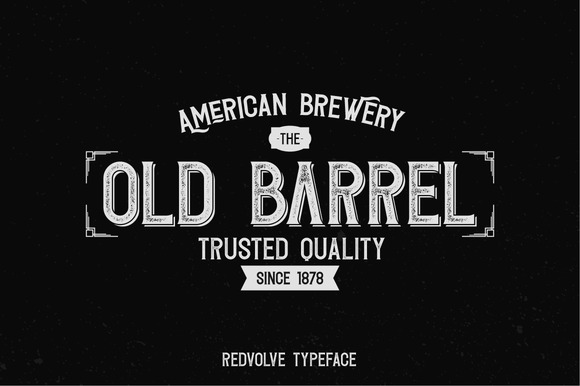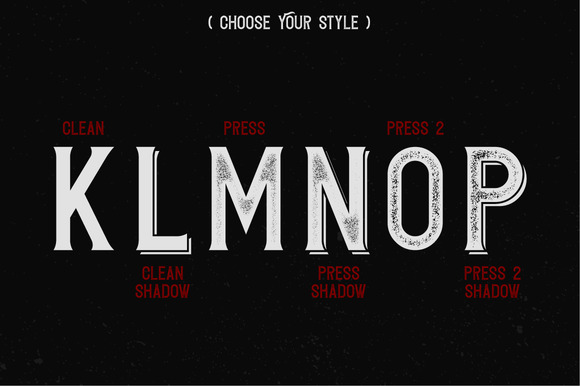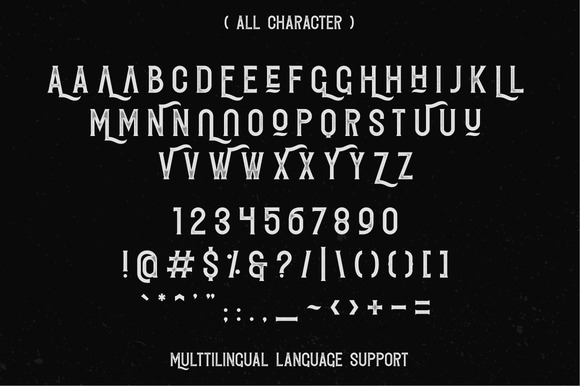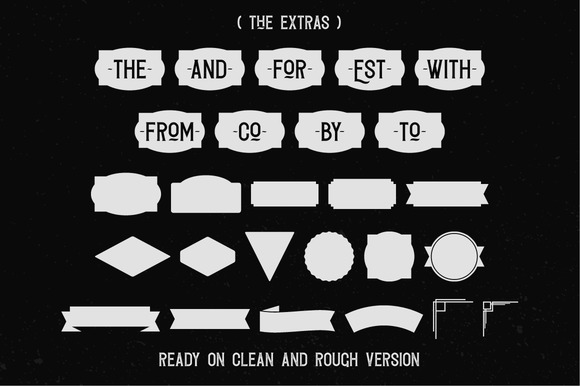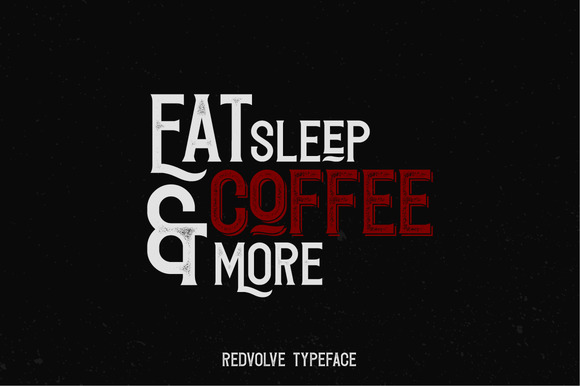
Getting Creative with the Redvolve Font
Remember that moment when you’re brainstorming ideas for a design project and everything just comes together? The fonts, the colors, the layout – it’s like magic. For designers, those ‘aha’ moments are what drive us to create something truly special. And when you’re working on a creative project, having the right font can make all the difference. That’s why we’re excited to introduce you to the Redvolve Font, a stunning vintage label font family that’s sure to elevate your designs.
| 👤 Author | Dikas Studio |
With six variations to choose from, the Redvolve Font offers endless possibilities for your next design project. Whether you’re working on a logo, a label, or a promotional material, this high-quality font family is sure to impress. Plus, with a transparent background option, you can easily overlay your design on any background, giving you complete creative control. And the best part? The Redvolve Font is available for free download, making it an invaluable resource for designers of all levels.
Key Features of Redvolve Font
- Includes 6 styles and 4 weights, providing versatility for different design applications
- Designed with a modern aesthetic, making it suitable for a wide range of creative projects
Honest Review: Redvolve Font
As a designer, I’m always on the lookout for high-quality design resources that can elevate my creative projects. Recently, I stumbled upon the Redvolve Font, and I’m excited to share my honest review with you.
What works well: ✨ The Redvolve Font has a unique and modern aesthetic that makes it perfect for a wide range of design applications. It’s highly versatile and can be used for both digital and print projects. I also appreciate the fact that it’s available for free download, making it an excellent resource for designers on a budget.
The font also features a transparent background, which allows for seamless integration with other design elements. This makes it a great choice for designers who want to create a cohesive look across their design projects.
What doesn’t work well: ⚠️ While the Redvolve Font is a great addition to any design library, it’s not without its limitations. The font is a bit on the heavier side, which can make it difficult to read in certain contexts. Additionally, the font’s unique style may not be suitable for all design applications.
Overall impression: I’m impressed with the Redvolve Font and its potential to enhance creative projects. While it may have some limitations, its unique style and high-quality design make it a valuable resource for designers.
- Unique and modern aesthetic
- Highly versatile for digital and print projects
- May be too heavy for certain contexts
How to Use Redvolve Font
The Redvolve Font is a high-quality design resource perfect for creative projects that demand attention to detail. With its sleek and modern design, it’s an excellent choice for designers looking to elevate their work.
Tips for Getting the Most Out of Redvolve Font
To get the most out of the Redvolve Font, try the following:
- Combine the Redvolve Font with other design elements to create a cohesive look.
- Use the font in conjunction with a high-quality image or background to enhance the overall design.
The Redvolve Font is perfect for various design projects, including:
- Business card and brochure design
- Infographic and presentation design
Alternatives to Redvolve Font
When working on a creative project, finding the right design resource is crucial. In this article, we’ll explore some alternatives to the Redvolve Font.
The Great Vibes Font is a beautiful, handwritten script that’s perfect for creating a warm and inviting atmosphere in your design. It’s ideal for use in titles, headings, and other text elements where you want to add a touch of personality. Great Vibes Font has a high-quality design and is available for free download.
Compared to Redvolve Font, Great Vibes Font has a more elegant and refined feel. While Redvolve Font is great for modern and edgy designs, Great Vibes Font is better suited for more traditional and vintage-inspired projects.
Can I use the Redvolve Font with a transparent background?
Yes, the Redvolve Font supports transparent backgrounds, making it ideal for use in graphic design, digital art, and other creative projects. However, please note that some font editing software may not support transparent backgrounds, so be sure to check the software’s compatibility before using the font.